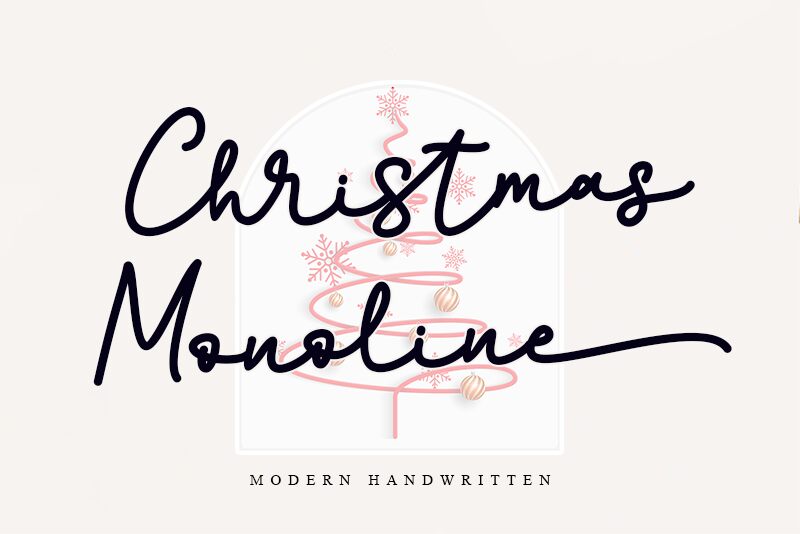
Christmas Monoline is the perfect font for all your festive holiday designs. This handwritten monoline font by Letterara adds a playful and cheerful touch to your Christmas cards, invitations, and social media posts. The light weight gives it an airy feel, while the monoline style adds a touch of simplicity and elegance. Use this font to add a unique and personal touch to all your Christmas projects.